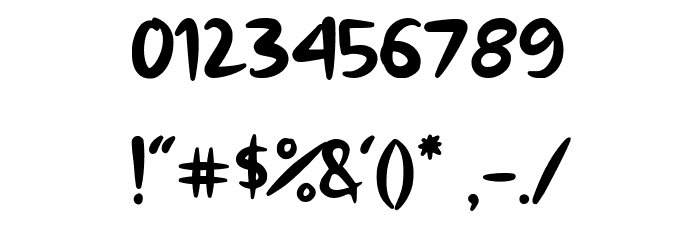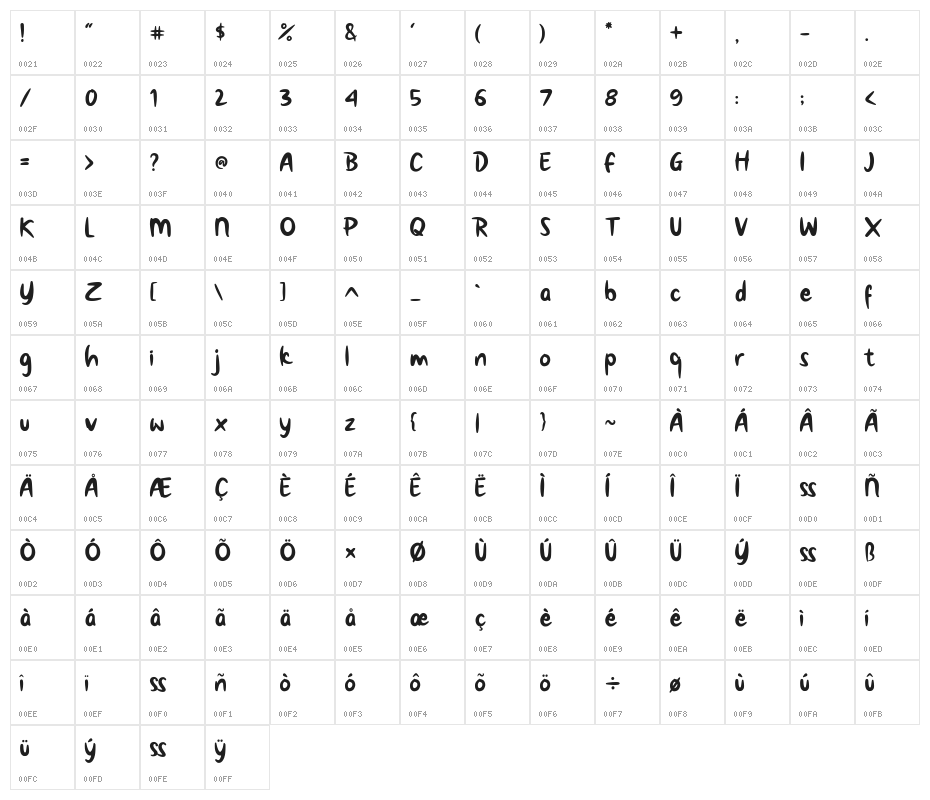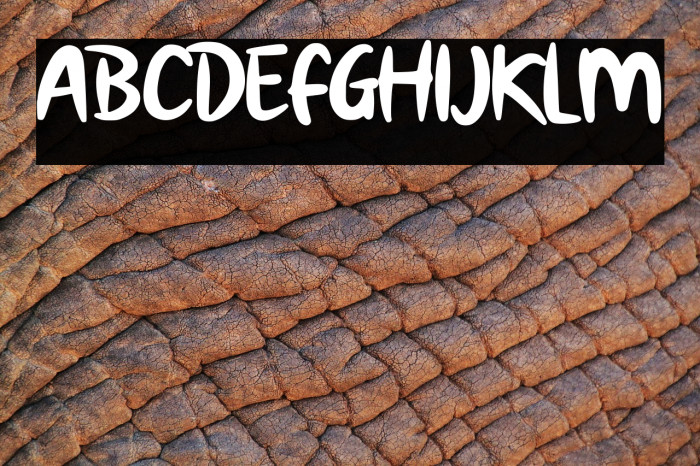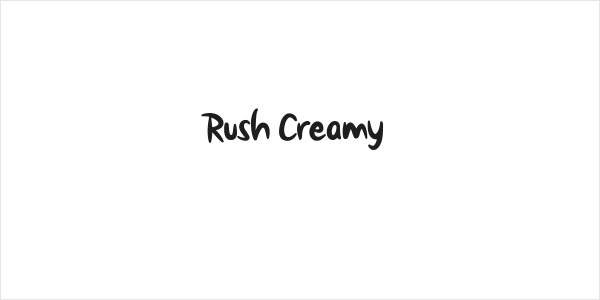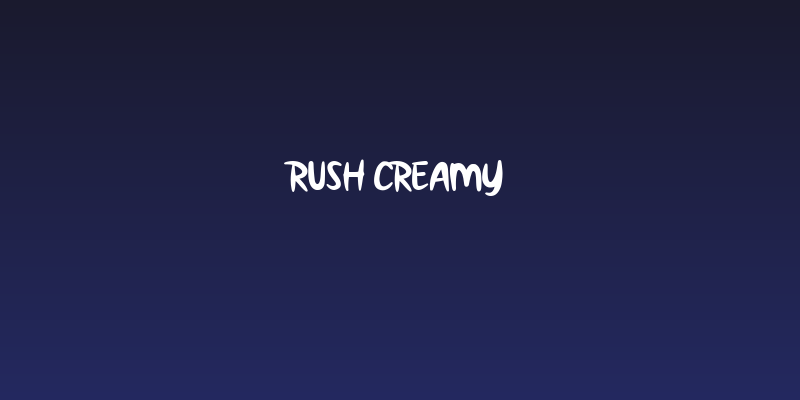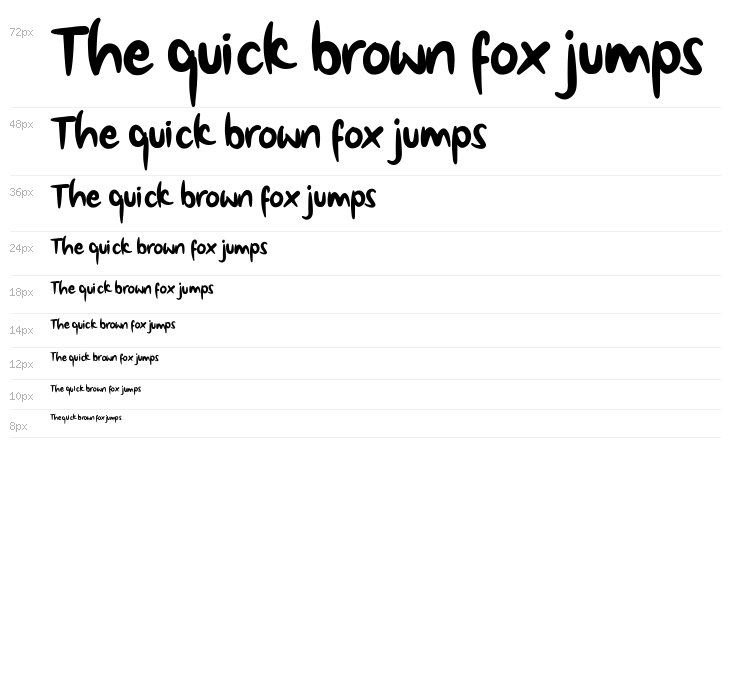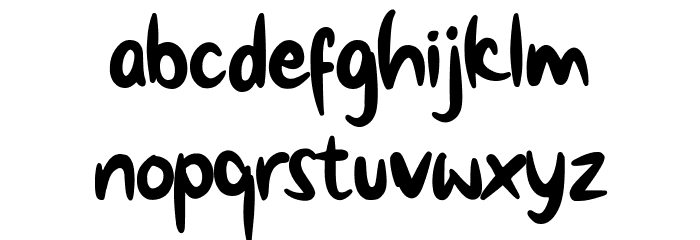
Rush Creamy Font
Rush Creamy Description
This font exhibits a playful and casual handwritten style, characterized by its rounded and smooth letterforms. The strokes are consistent, with a medium weight that gives it a friendly and approachable appearance. The characters are slightly condensed, which adds to its informal charm. The font maintains a uniform stroke width, providing a balanced and harmonious look. It includes a full set of uppercase and lowercase letters, numerals, and a variety of punctuation marks, making it versatile for different uses. The overall aesthetic is modern yet relaxed, suitable for projects that require a personal touch.
| Proposed Projects | Ideal for greeting cards, invitations, children's books, and casual branding. |